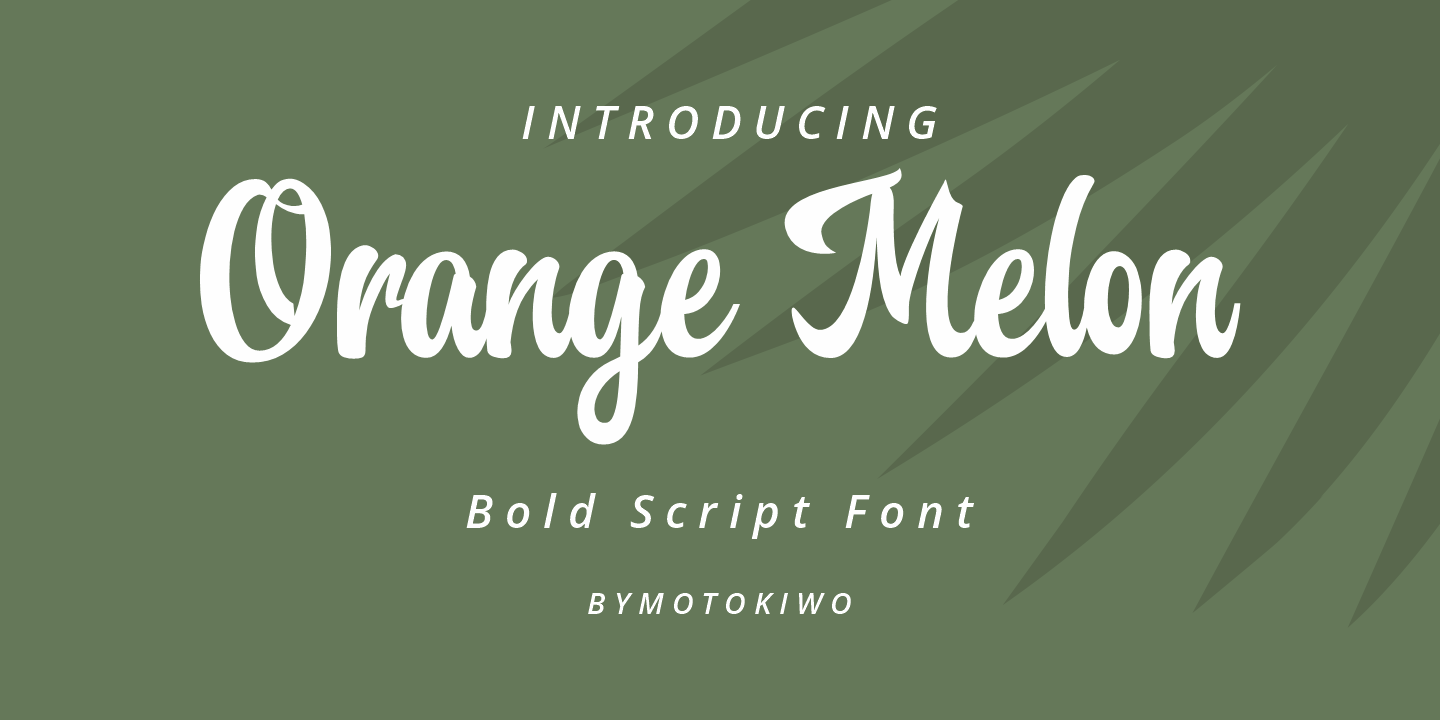
Orange Melon Font is perfect for fruit juice packaging, summer festival graphics, tropical resort branding, children's product labels, fresh produce marketing, vibrant food truck designs, sunny vacation campaigns, organic smoothie bars, and energetic health food promotions. This refreshing typeface excels in both colorful digital applications and bright print materials.
What makes Orange Melon Font exciting is its delightful fusion of tropical freshness and playful energy that instantly evokes the joy of summer sunshine and sweet fruit flavors. The carefully designed letterforms feature rounded curves and cheerful proportions that capture the essence of juicy citrus while maintaining excellent readability. Its vibrant appearance creates instant appetite appeal and happiness, making it perfect for brands seeking to communicate freshness, health, and sunny optimism.
The Orange Melon Font family includes multiple juicy variations: Regular, Bold, Light, Rounded, Outline, and Textured versions. Each family member maintains consistent fruity aesthetics while offering different visual impacts for diverse fresh design applications and vibrant branding needs.
Orange Melon Font Free Download provides designers with an exceptional tool for creating refreshing communications that capture the essence of tropical fruits and summer vibrancy. This remarkable typeface combines playful charm with modern functionality, making it ideal for beverage companies, health food brands, tropical destinations, and children's products. The font's distinctive characteristics include bouncy letterforms, friendly spacing, and cheerful details that reflect the natural sweetness of citrus while ensuring excellent readability across all fresh applications.
Professional designers choose Orange Melon Font for projects requiring energy and fresh appeal. Whether developing fruit brand packaging, summer marketing campaigns, or healthy lifestyle materials, this font maintains its vibrant presence across different cheerful contexts. The typeface supports extensive character sets and includes fun symbols relevant to fruit marketing, health food communication, and tropical branding.
The creation of Orange Melon Font involved extensive study of tropical typography and fruit packaging design trends. Its fresh appearance honors natural fruit aesthetics while providing contemporary functionality for modern food industry needs. The font's organic proportions and cheerful character make it particularly effective for juice bars, health food stores, and summer entertainment venues.
For graphic designers working on fresh and vibrant projects, Orange Melon Font offers unmatched energy and tropical authenticity. Its sunny appearance works wonderfully in beverage marketing, health food packaging, and summer event materials. The font's premium quality ensures professional results whether used in digital fruit campaigns or colorful outdoor advertising.